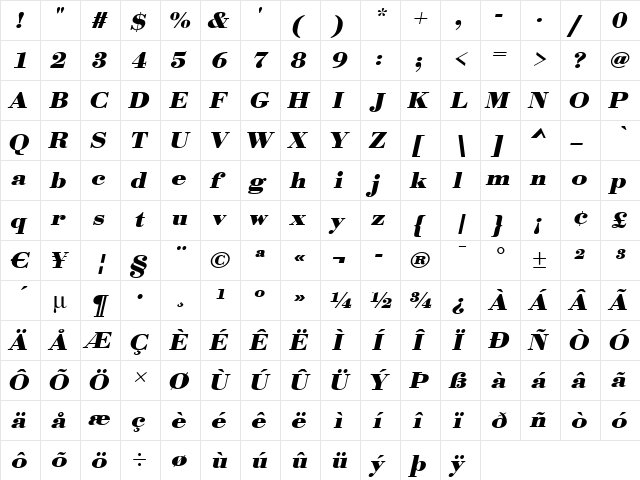
OlgaBeckerExtended Bold Italic
Design Context for OlgaBeckerExtended Typeface
OlgaBeckerExtended offers clean, dependable letterforms without strong stylistic allegiance, making it a practical choice for designers who need flexibility. Its italic angle brings a sense of urgency and motion to the letterforms. Its bold stroke weight gives it real presence on the page.
Pro Tip: Use OlgaBeckerExtended for emphasis, pull quotes, and subheadings where its slanted energy can add rhythm to the layout.